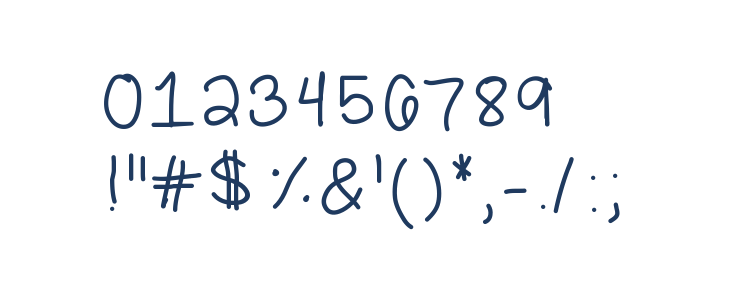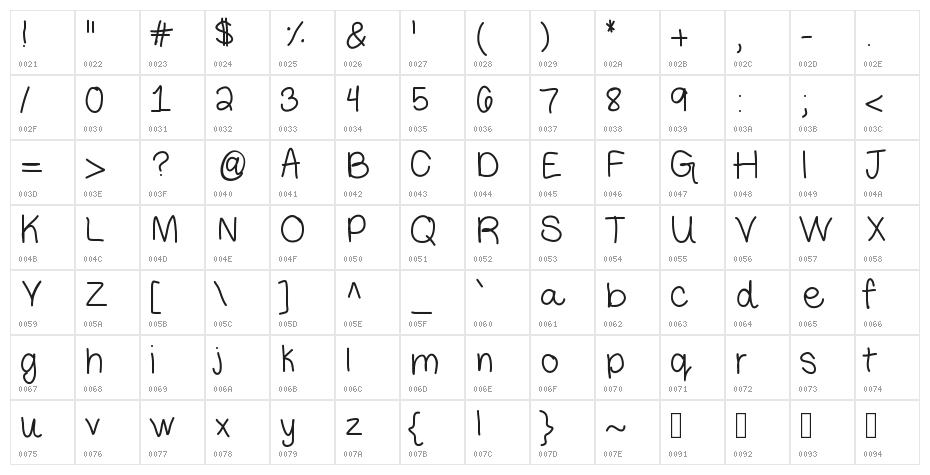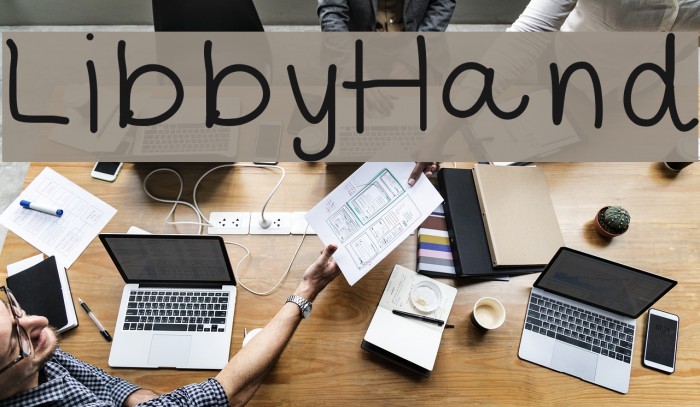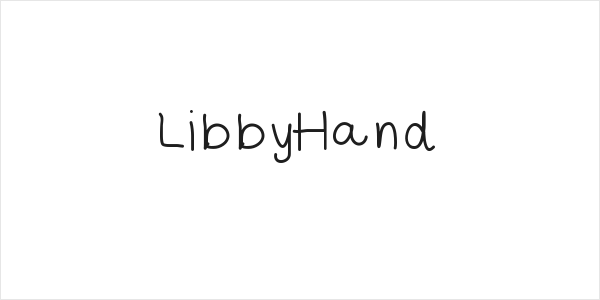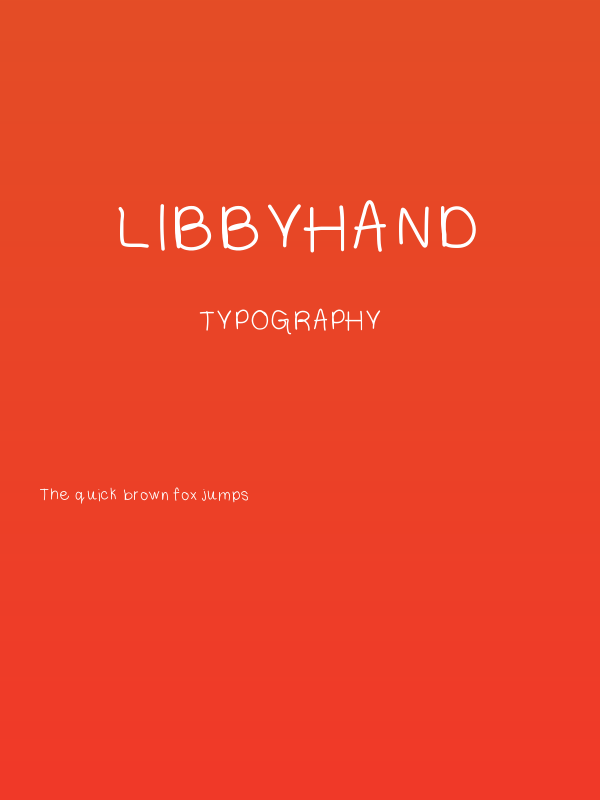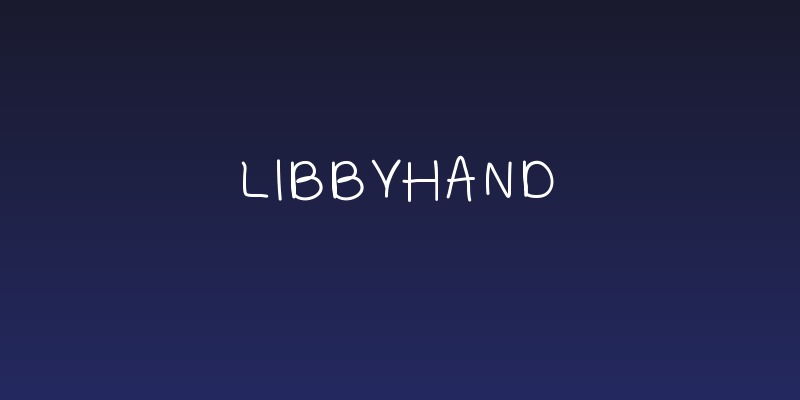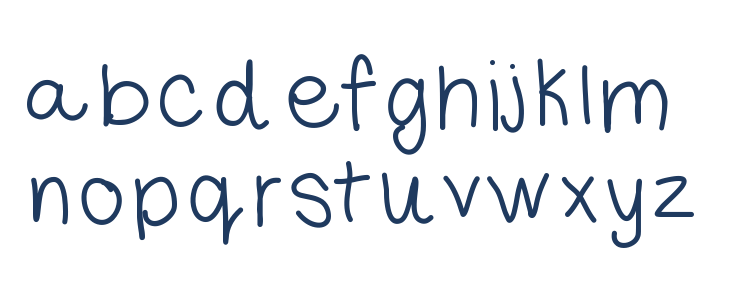
LibbyHand Font
LibbyHand Description
This font exhibits a playful and casual handwritten style, characterized by its smooth, rounded edges and slightly irregular strokes that mimic natural handwriting. The letters are evenly spaced, providing a clean and approachable appearance. The uppercase and lowercase letters maintain a consistent flow, enhancing readability while retaining a whimsical charm. Numbers and special characters are crafted with the same playful touch, making them suitable for informal and creative contexts. The overall design is friendly and inviting, perfect for projects that require a personal touch.
LIBBYHAND UPPERCASE
LIBBYHAND LOWERCASE
LIBBYHAND OTHER CHARS
| Proposed Projects | Ideal for greeting cards, children's books, personal blogs, and informal branding. |